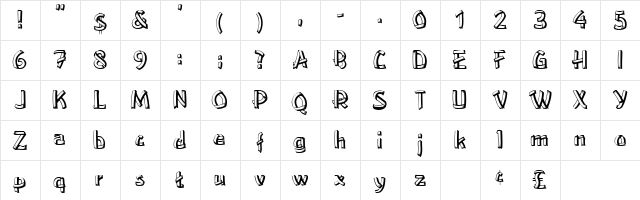
Lower East Side Font Preview
Lower East Side
Lower East Side Font Details
Design Context for Lower Typeface
Lower is a composed and adaptable typeface that performs quietly and consistently across a wide range of design contexts.